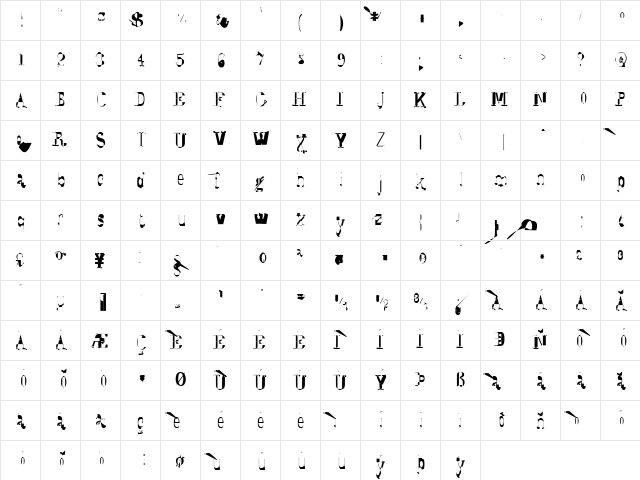
Syzygy Regular
Design Context for Syzygy Typeface
Syzygy is a composed and adaptable typeface that performs quietly and consistently across a wide range of design contexts.